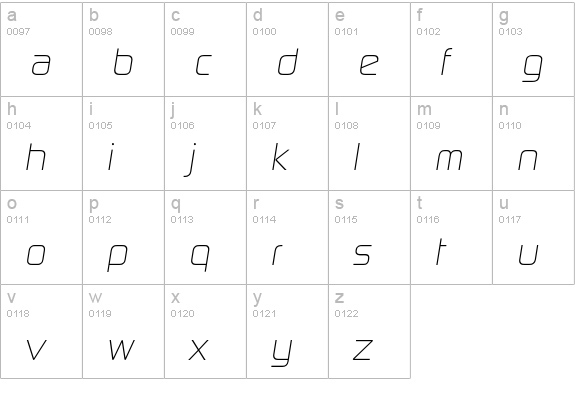
DigitalEF-LightItalic Font Details
DigitalEF-LightItalic font is a sleek and modern typeface that exudes elegance and sophistication. With its delicate italicized design, this font is perfect for adding a touch of refinement to any project. The light weight of the font gives it a subtle and airy appearance, making it ideal for use in various design applications. What's even better is that DigitalEF-LightItalic font is available for free download at FontsMarket.com. This means you can easily access and use this stylish font without any cost. Whether you're working on a website, branding materials, or any other design project, DigitalEF-LightItalic font is sure to elevate your work with its unique charm and versatility. Experience the beauty and versatility of this font today by downloading it for free at FontsMarket.com.